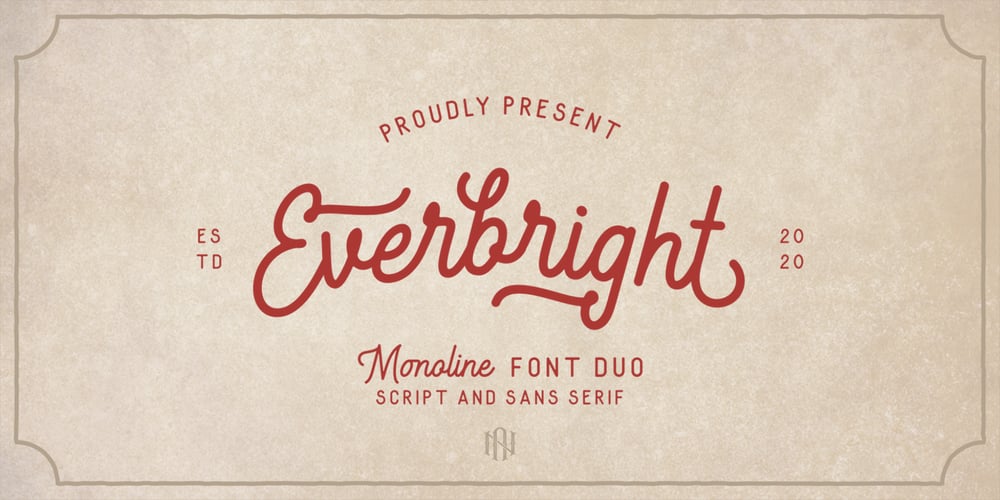
Everbright Font Family was designed by Muhammad Fatoni and published by Nyalaapi. Everbright contains 2 styles and family package options. Everbright is a vintage monoline font, It features a vintage monoline script style with a strong sans serif that make amazing combinations for your design. Perfect for branding projects, logos, clothing, and any other designs that require vintage feel.Features 6 Ligatures 176 Character Alternates Multilingual support OpenType features can be accessed using Open Type programs such as Adobe Illustrator CS/CC, Adobe Photoshop CS/CC, Adobe Indesign & CorelDraw X6-X7.